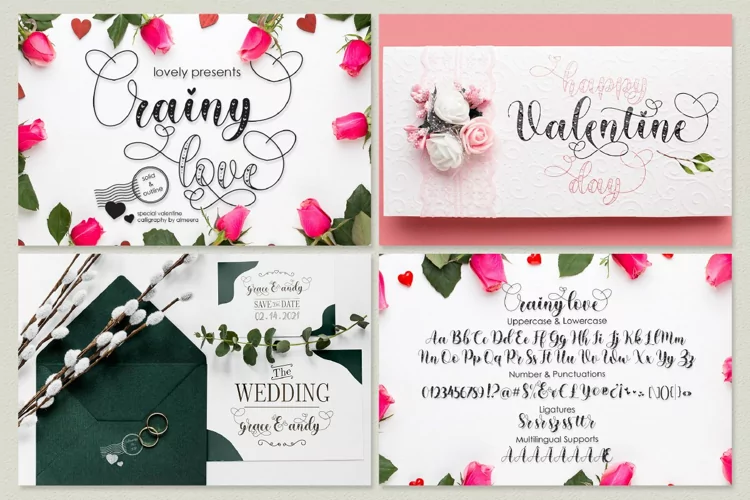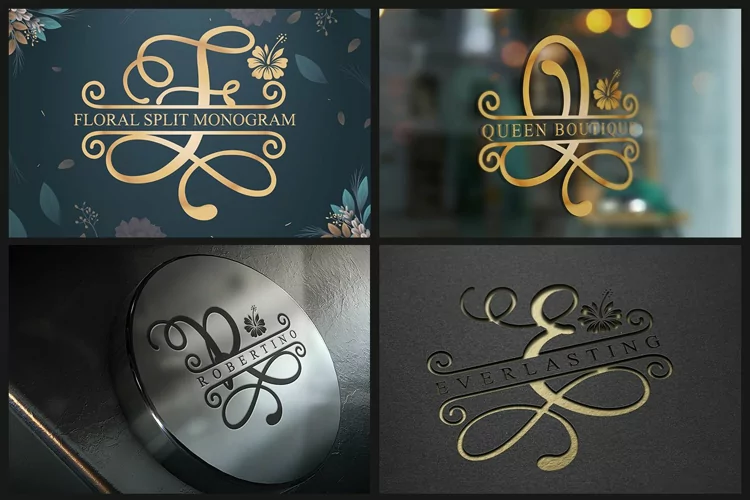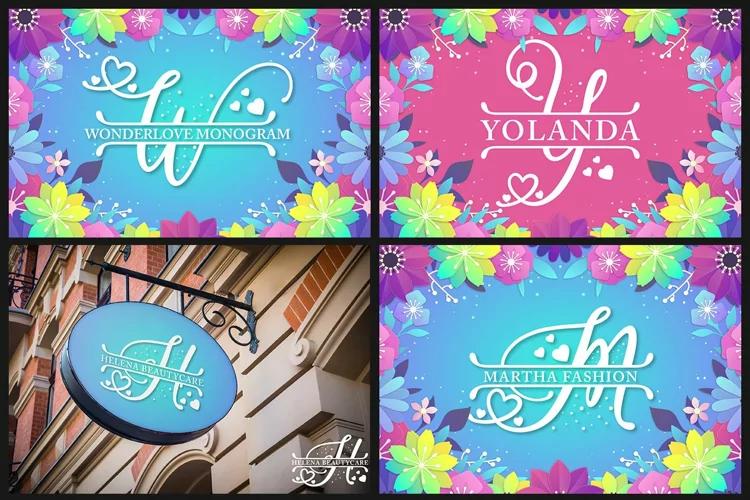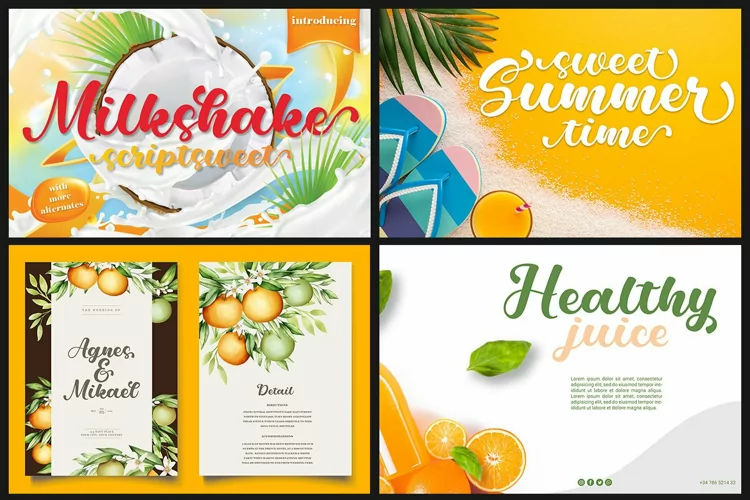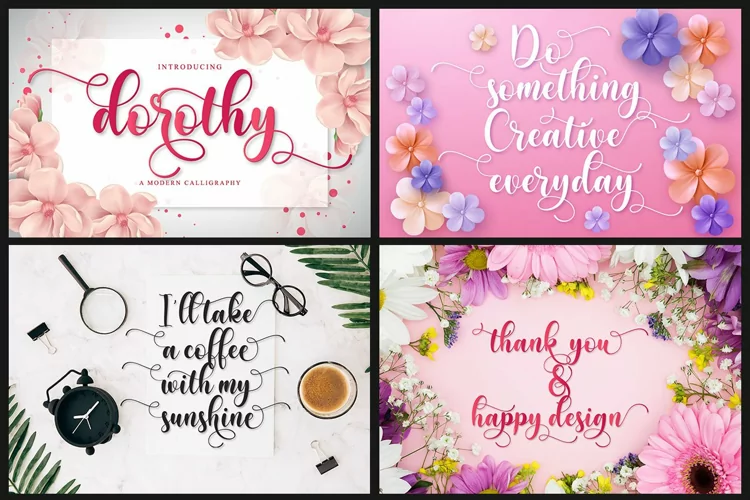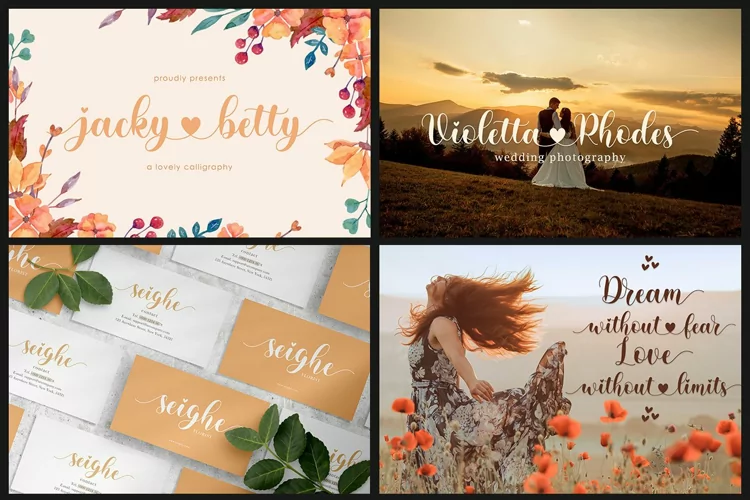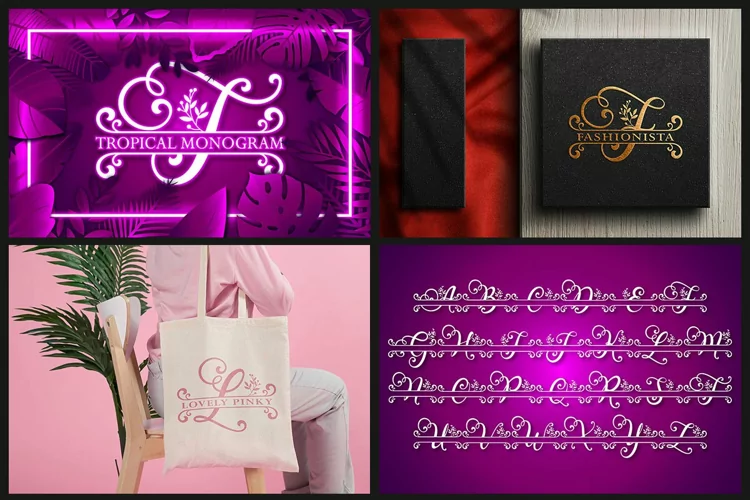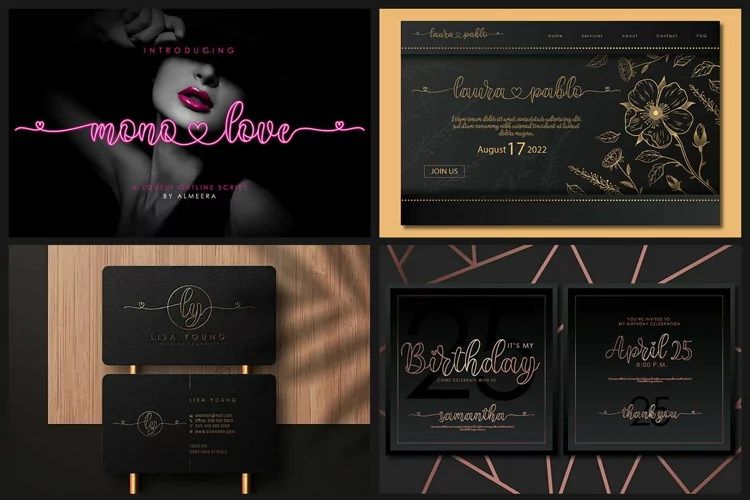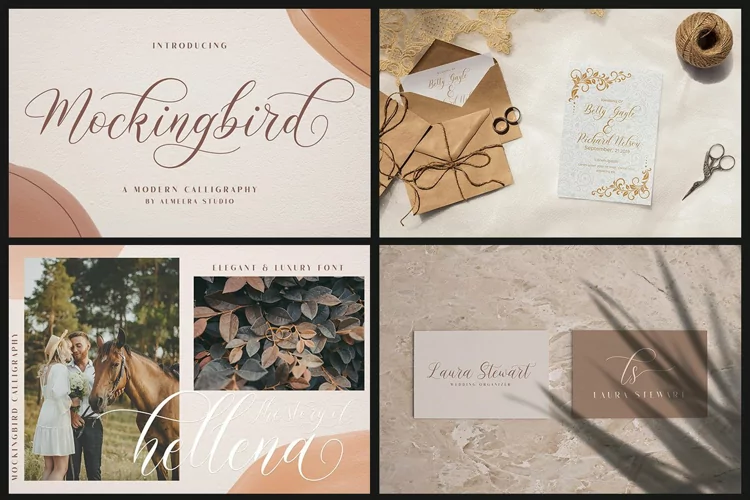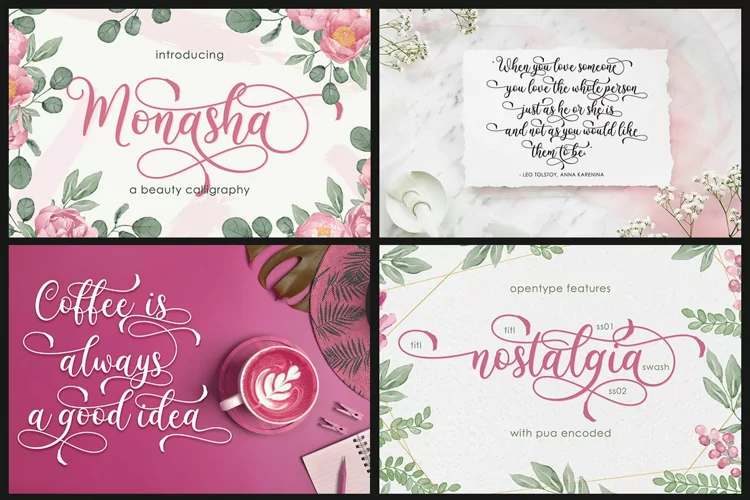
Crafting Font Collections – Bundle Vol.02
Looking for the perfect fonts to add a touch of creativity to your projects? This digital download features an exciting bundle of crafting fonts that are ready to inspire your next masterpiece! With instant access, you can start using these beautiful typefaces right away. 🎨✨
Introducing the Crafting Font Collections – Bundle Vol.02! This delightful collection is designed for creatives who love to add a personal touch to their designs. Whether you’re working on invitations, scrapbook pages, or digital art, these fonts will bring your ideas to life! 🌈
- Variety of Styles: From elegant scripts to playful display fonts, there’s something for every project! 🎉
This bundle is ideal for:
- Graphic designers looking for unique crafting fonts
- Scrapbook enthusiasts wanting to personalize their projects
- Small business owners creating custom products
- Any creative individual who loves typography! 💖
Let your creativity soar with the Crafting Font Collections – Bundle Vol.02! Perfect for all your crafting needs, these fonts will surely become your go-to choice for any project. Happy designing! 🌟